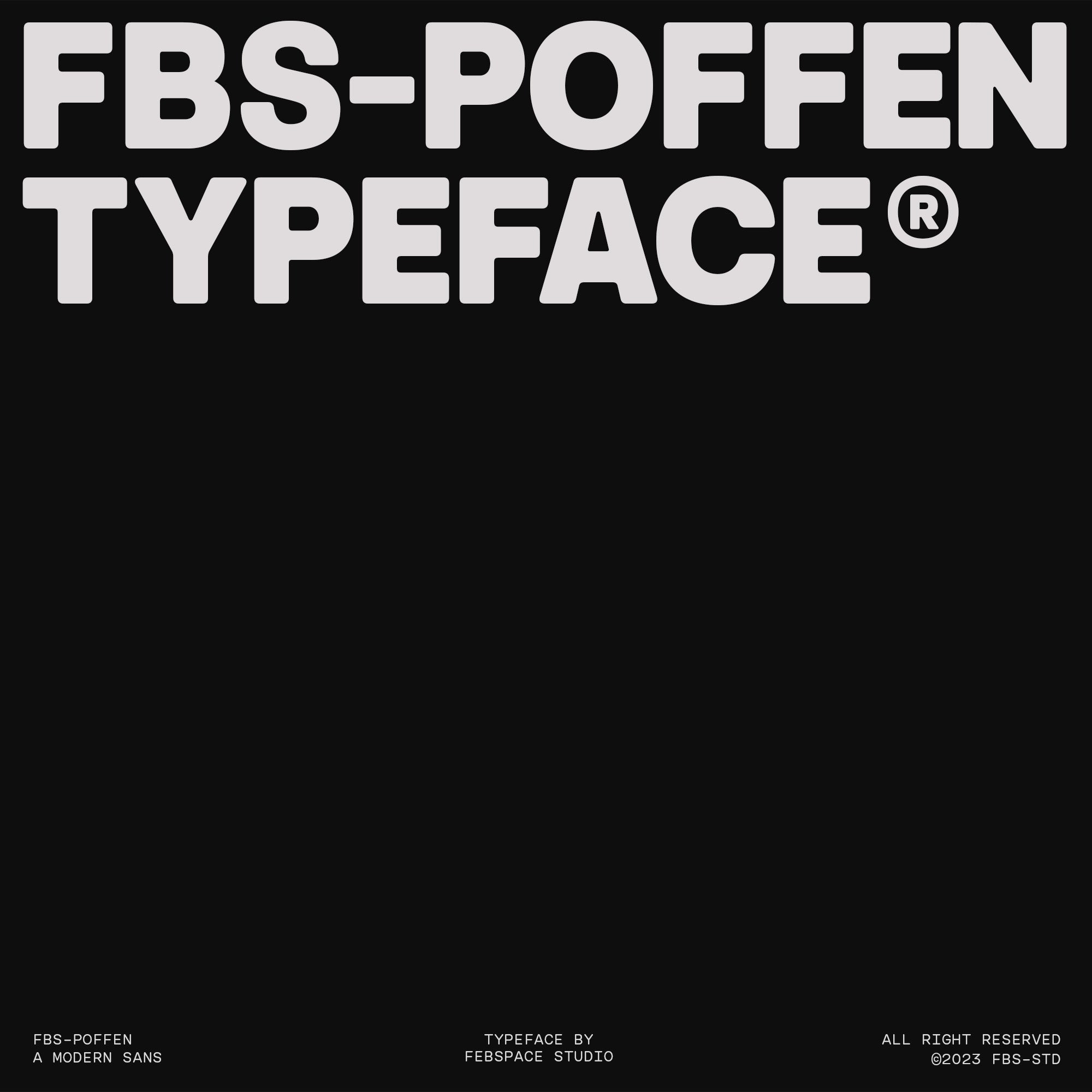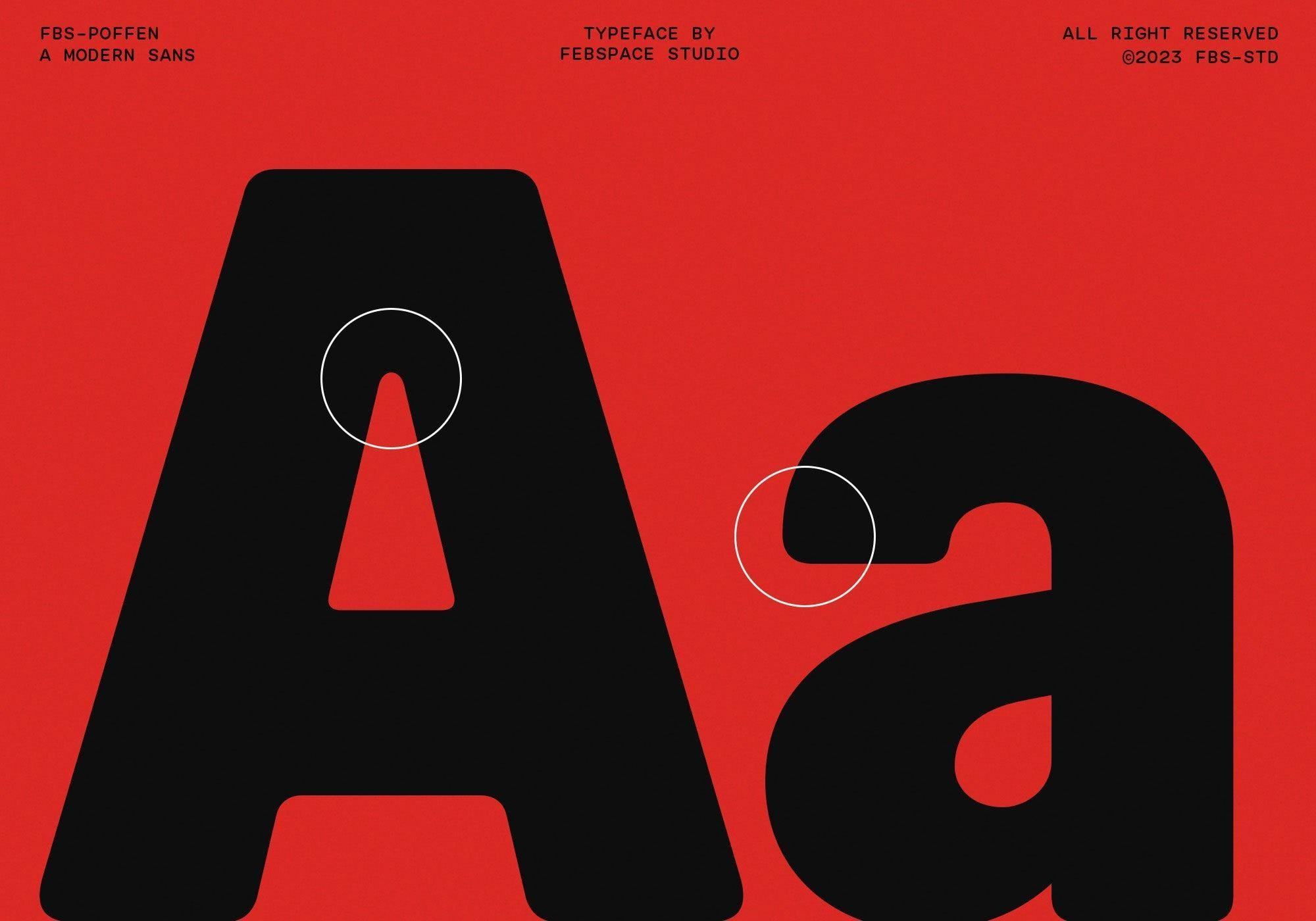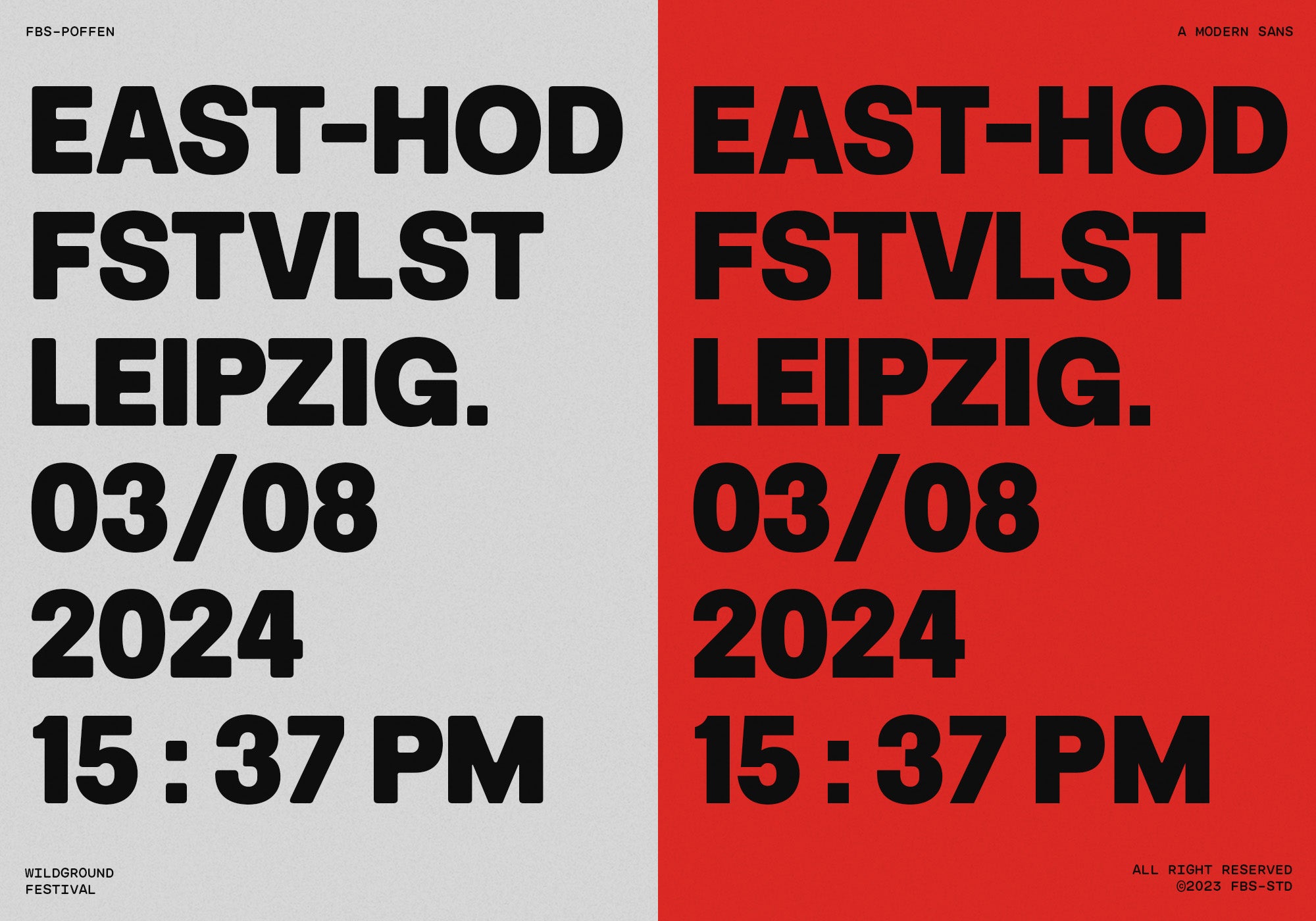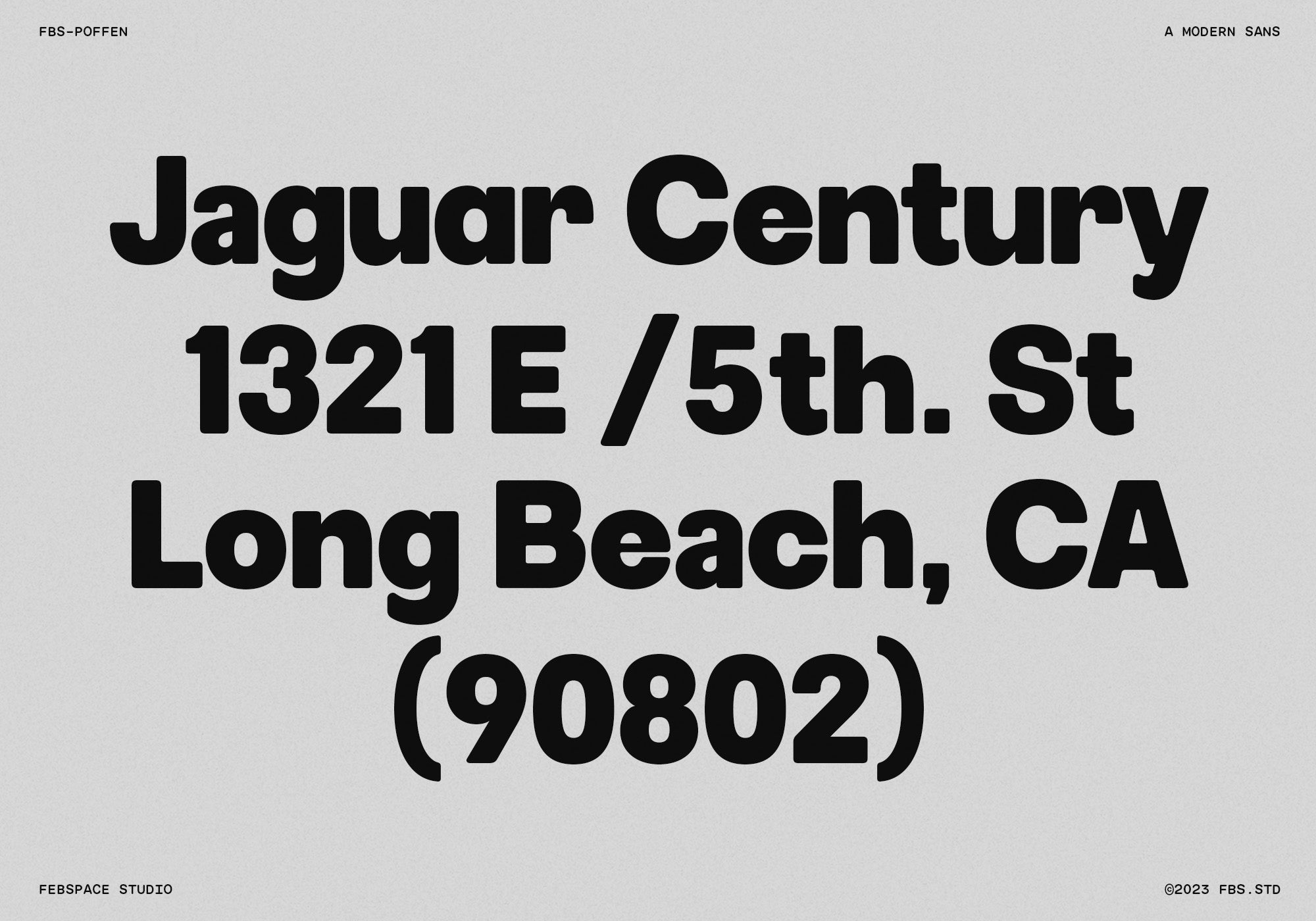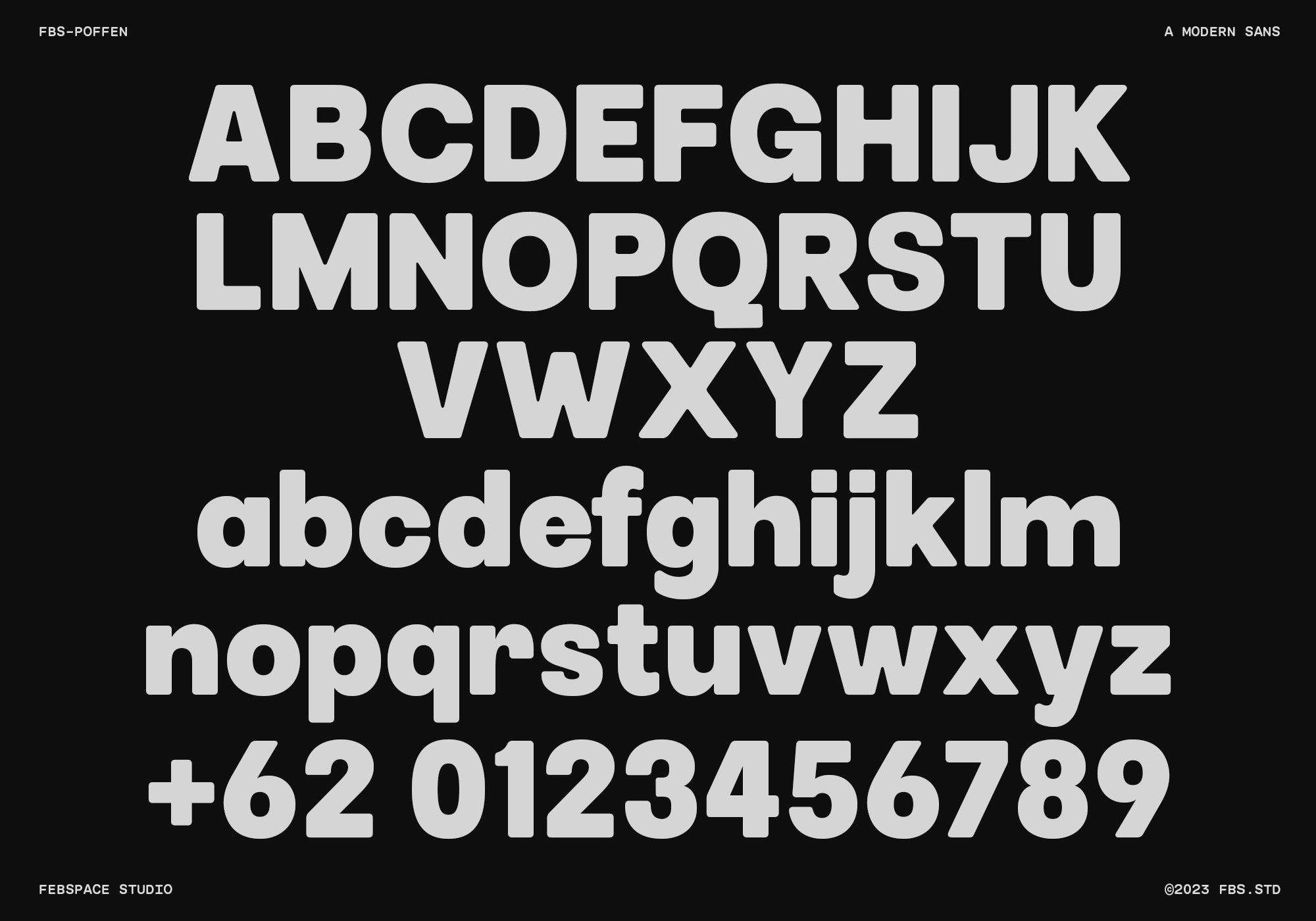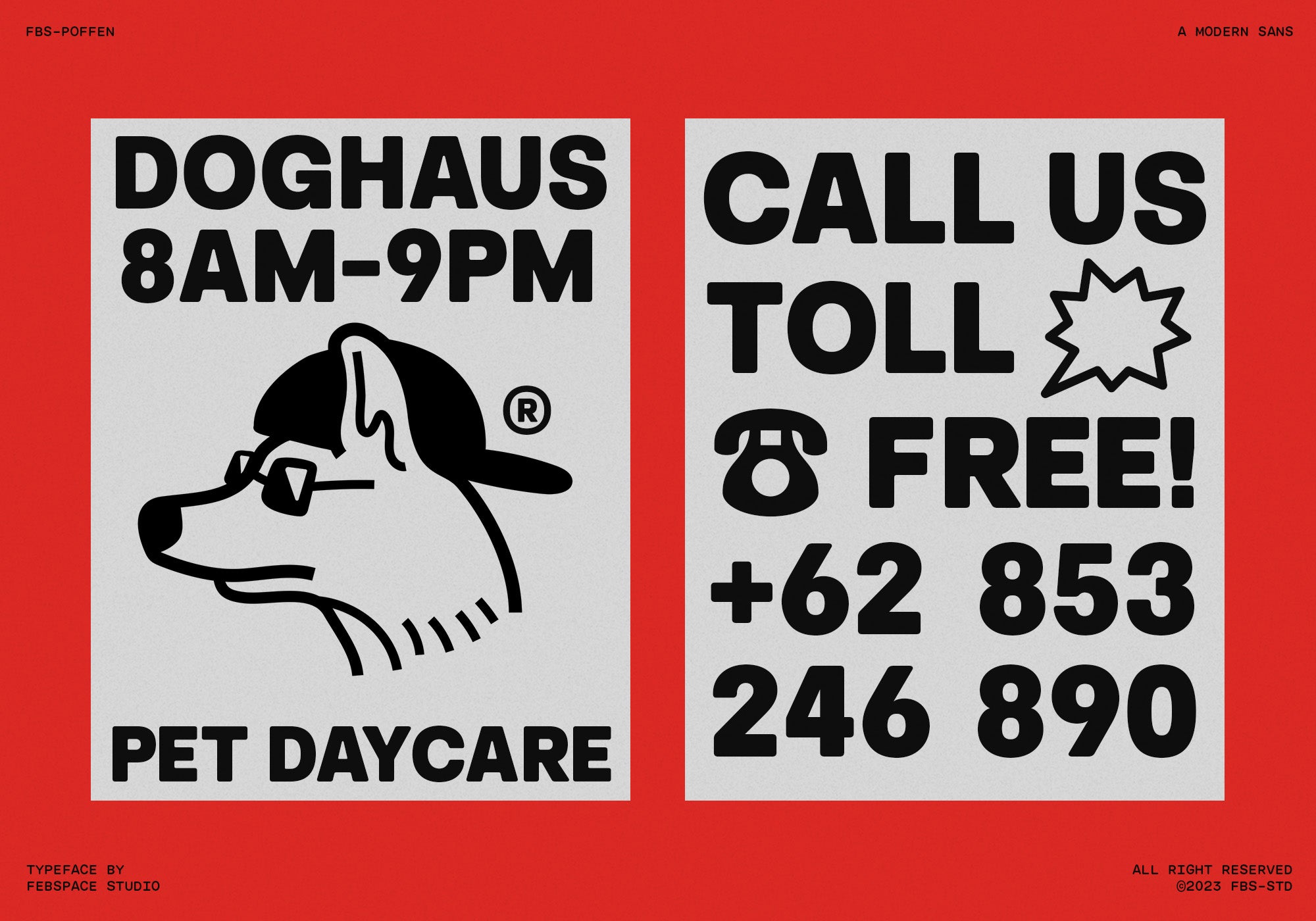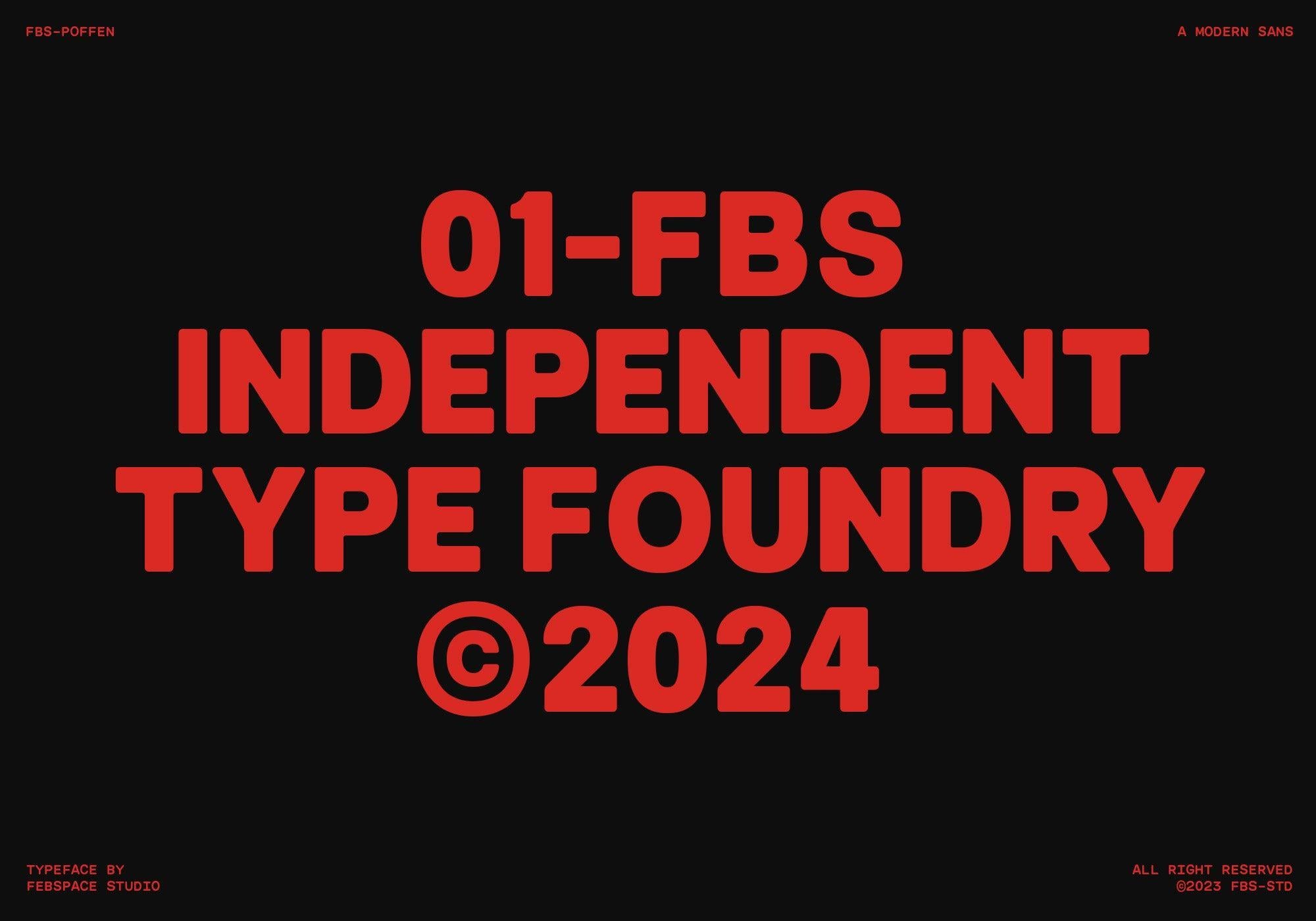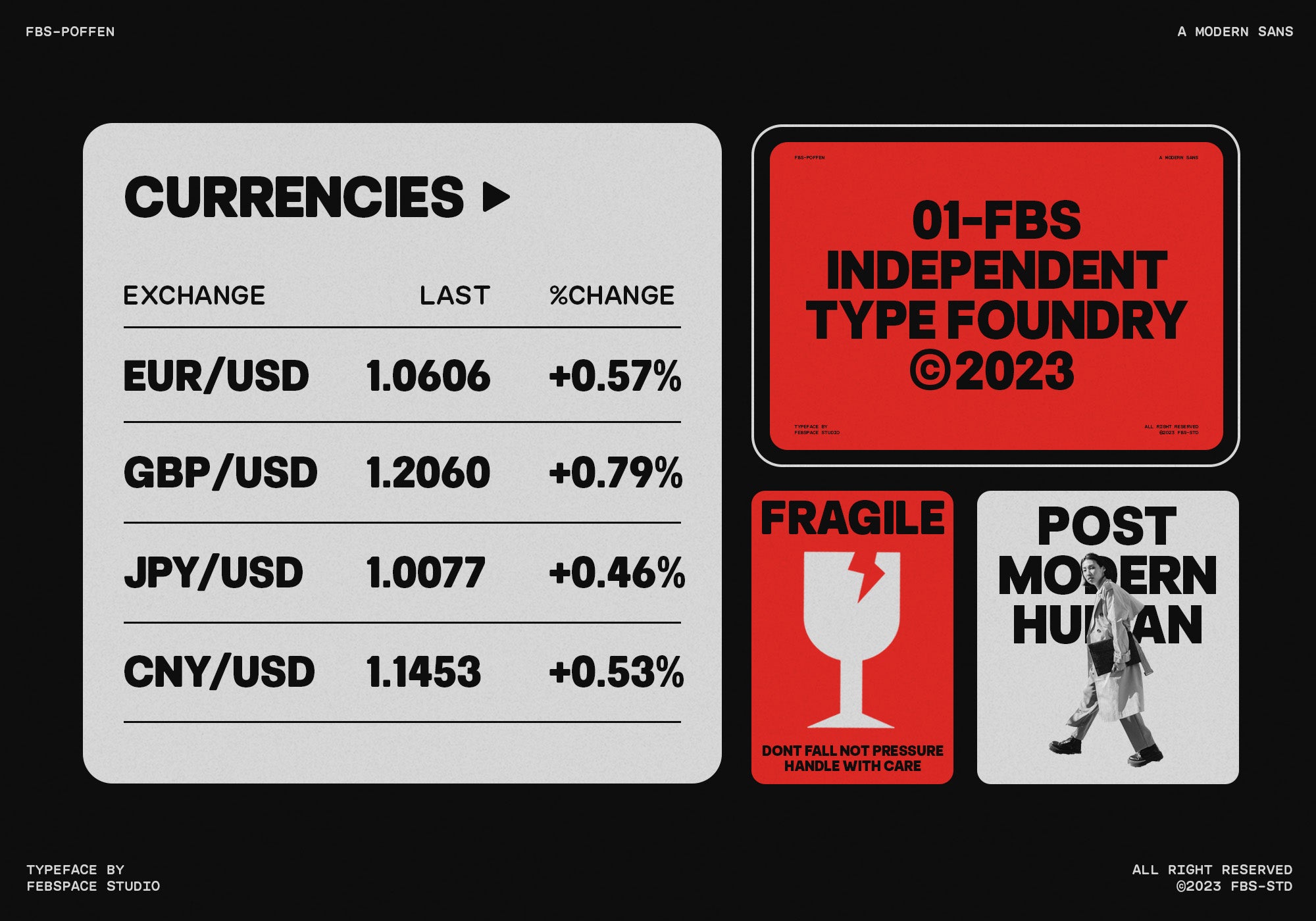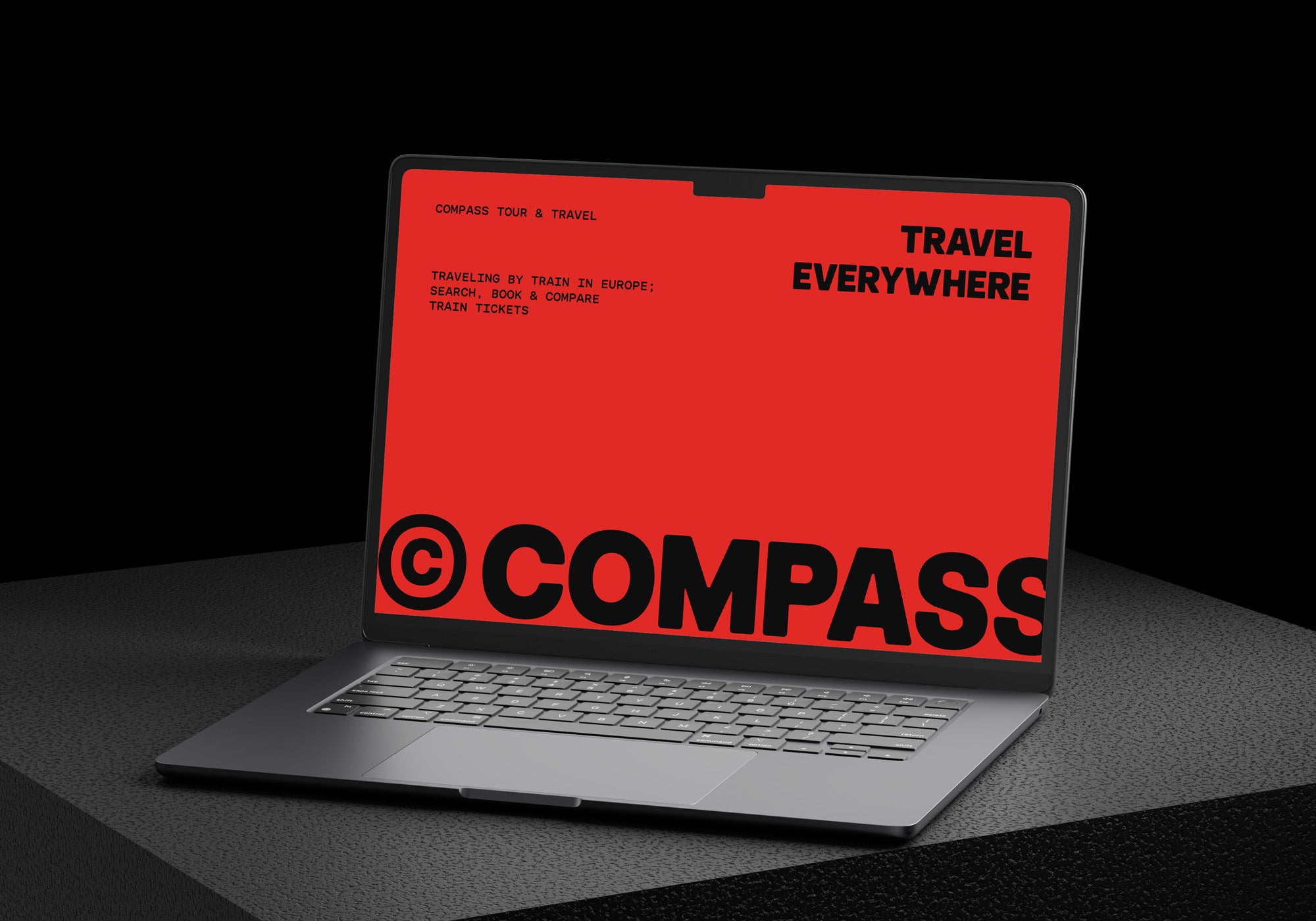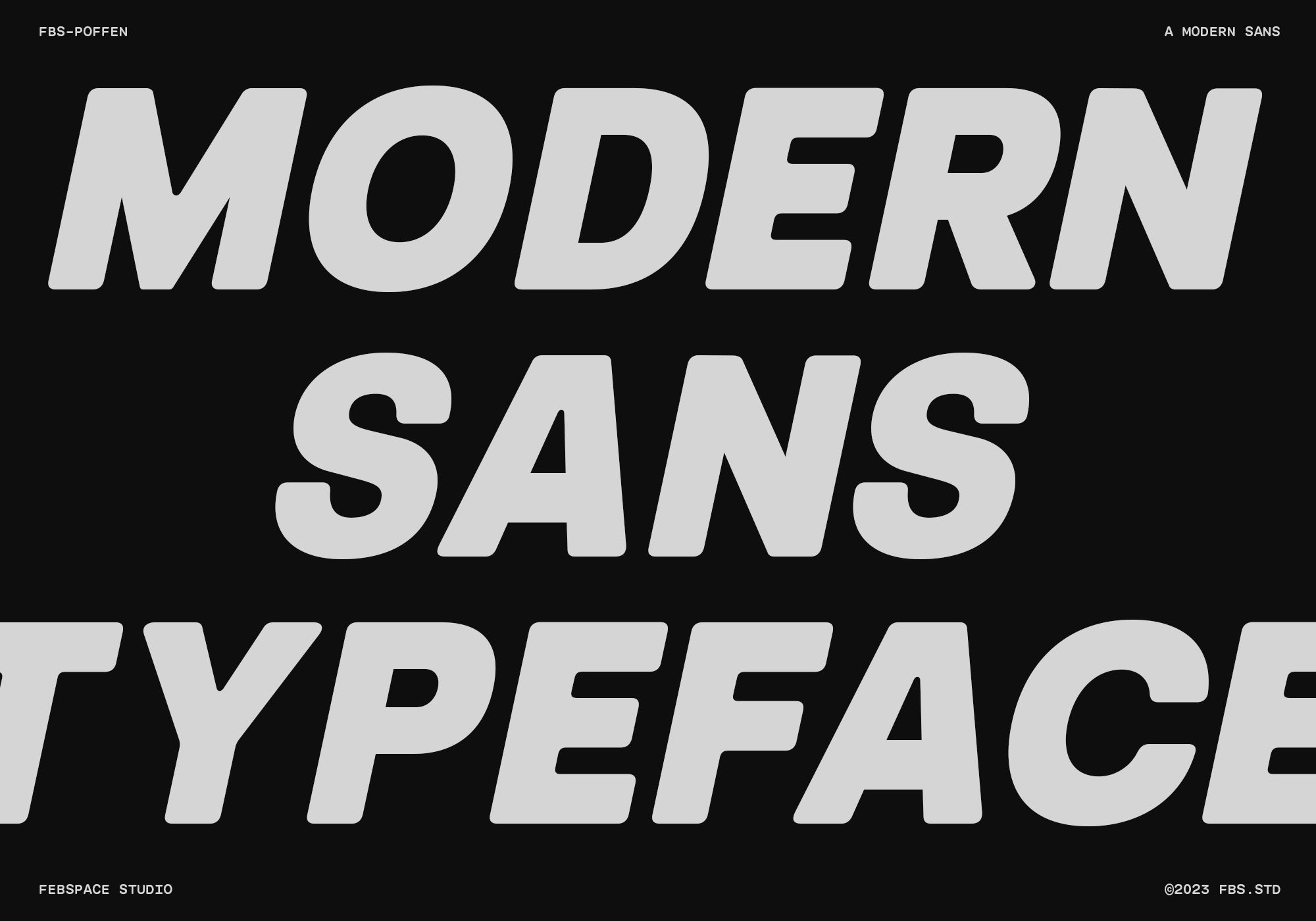
FBS Poffen Typeface
FBS Poffen Typeface is a versatile sans-serif font featuring four dynamic styles, each with rounded and pointed corner options, including a slanted style. This font is characterized by its blocky, clean, and legible design, making it suitable for both dense editorial and display purposes.
Ideal for modern graphic design and branding projects. Perfect for posters, editorial layouts, and digital media, ensuring a clean and legible presentation that enhances visual impact.